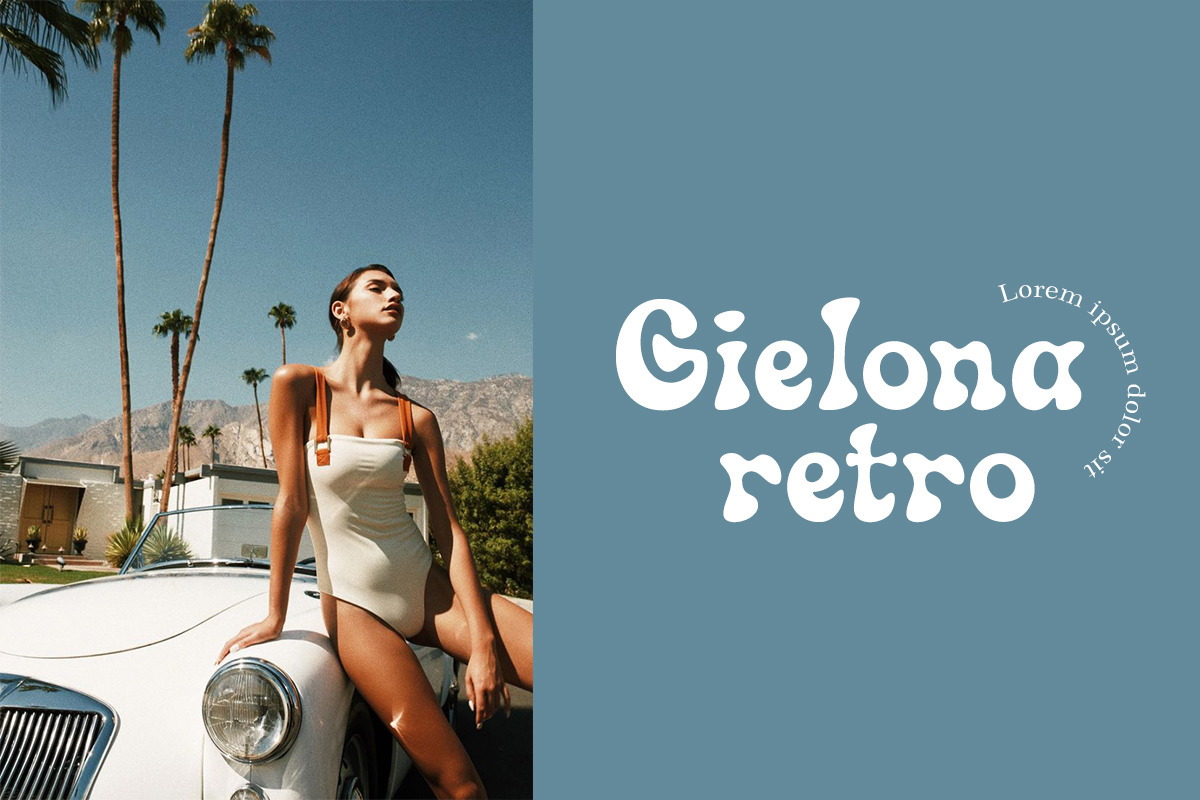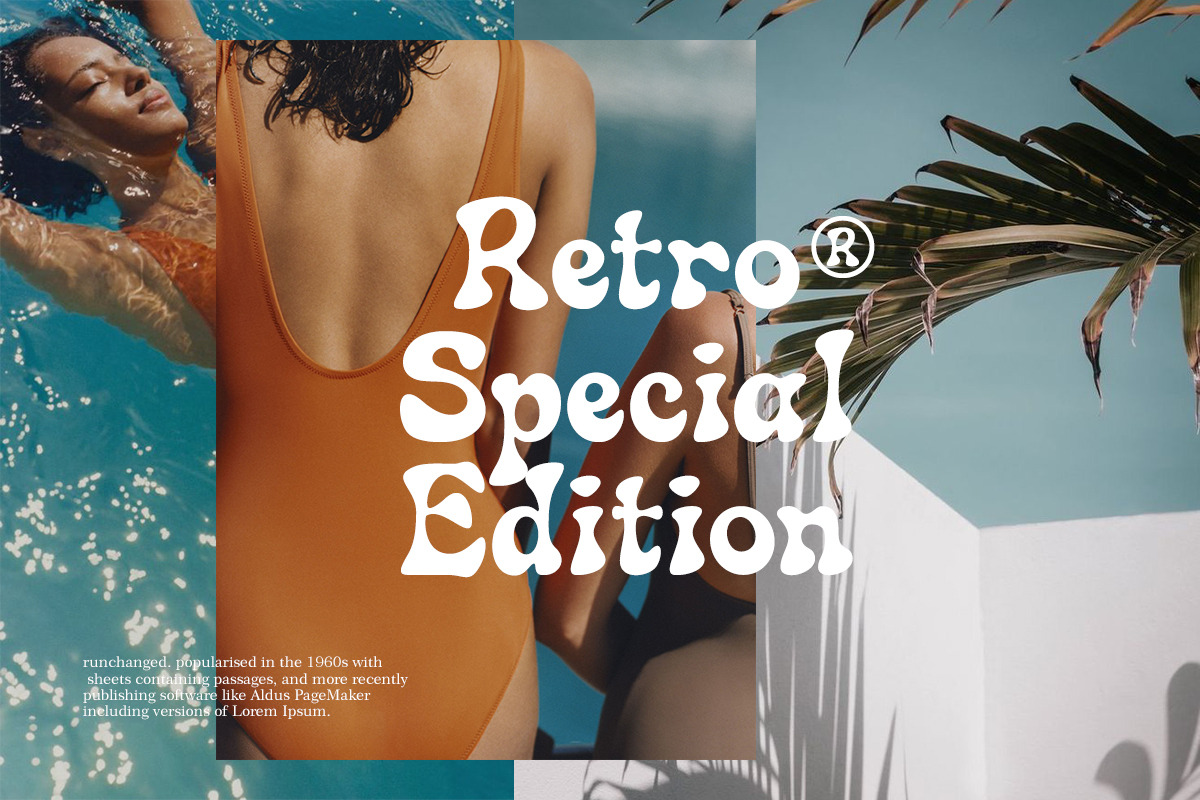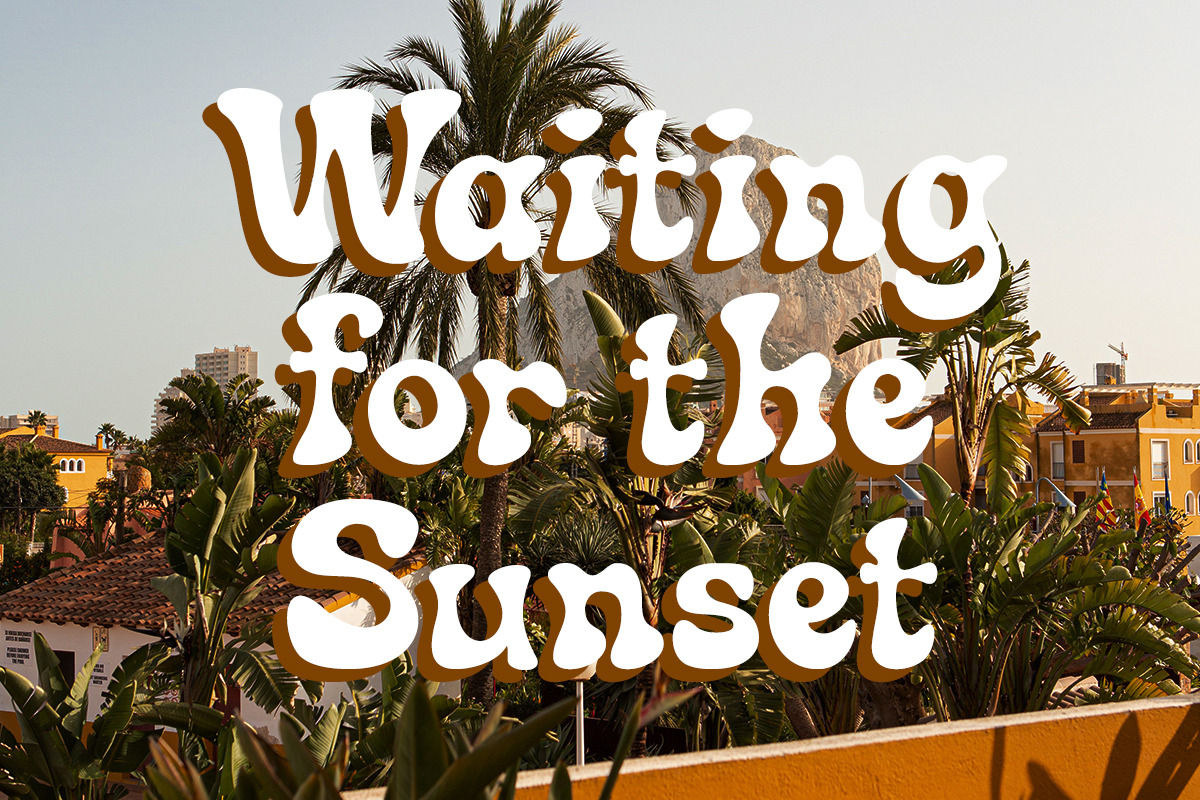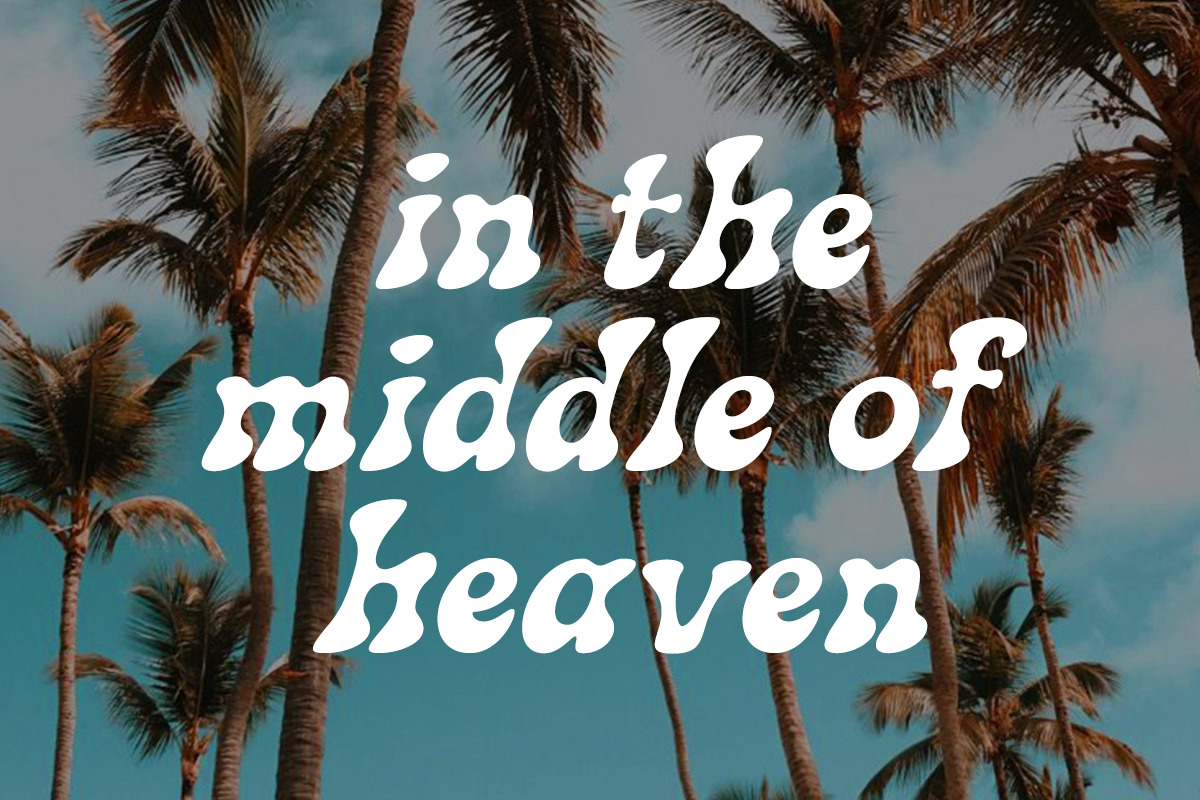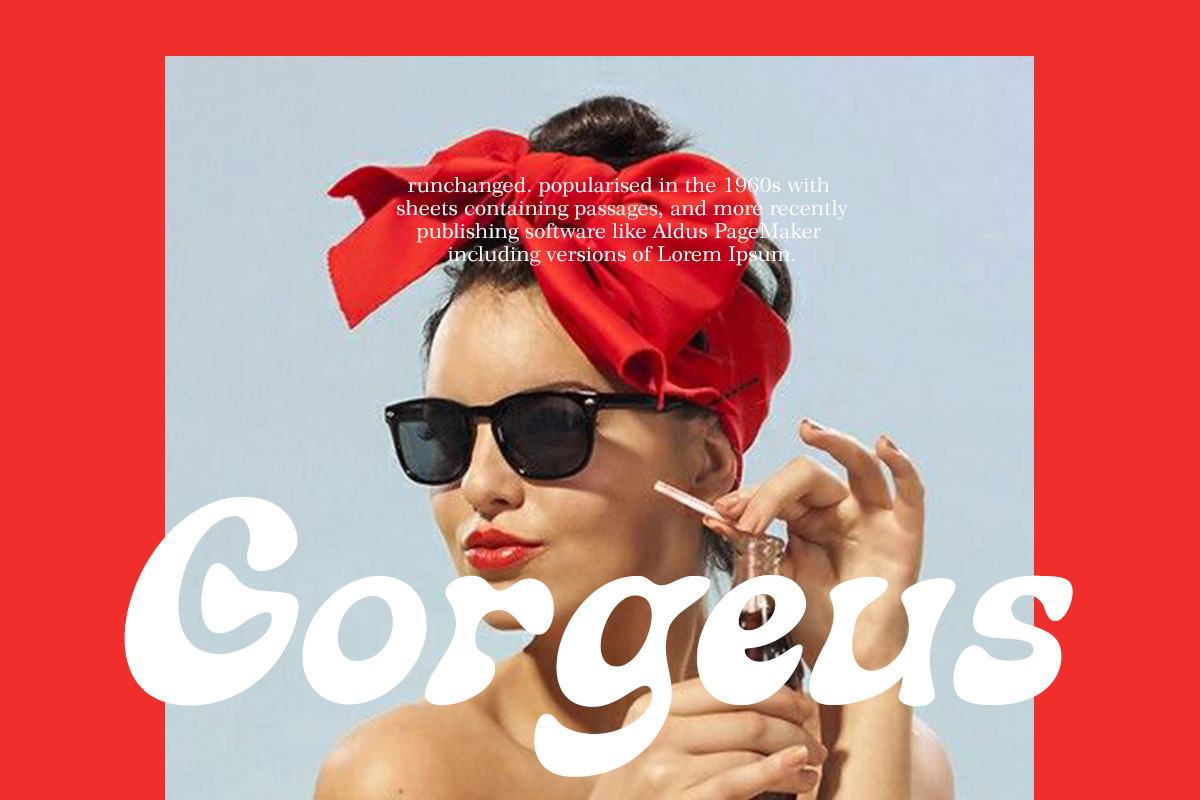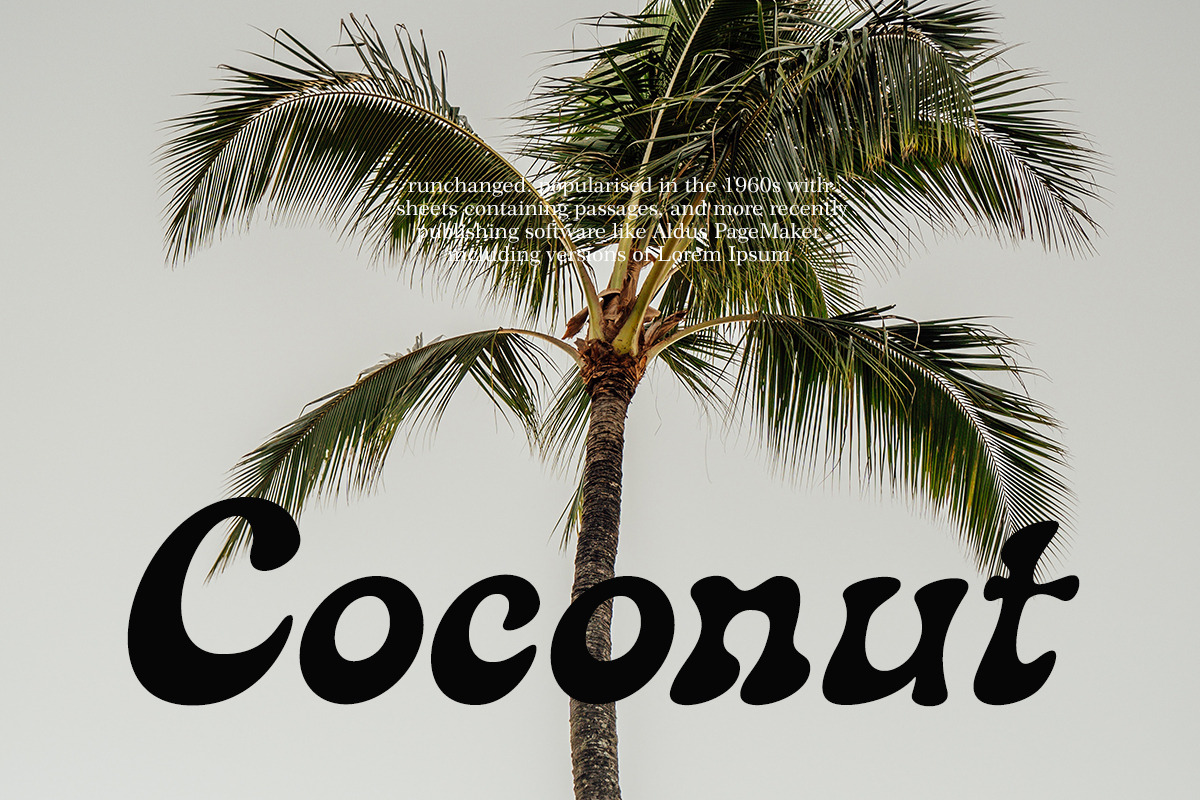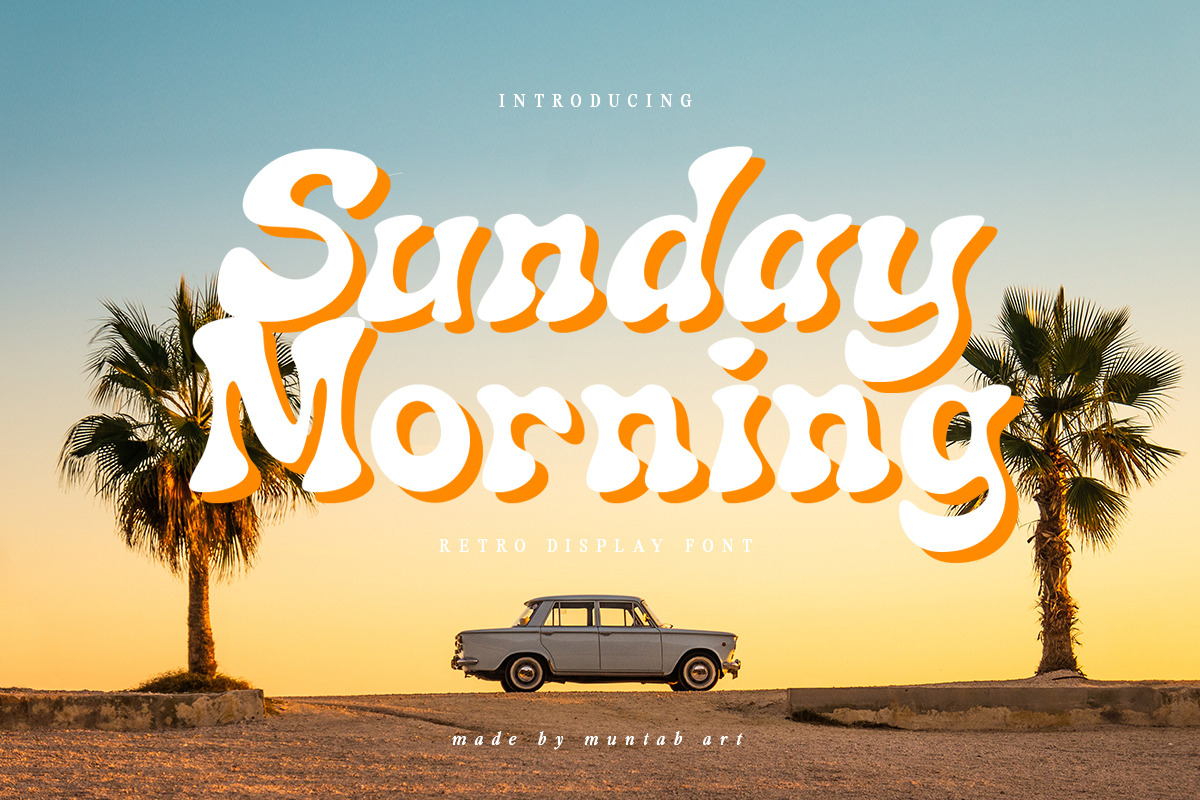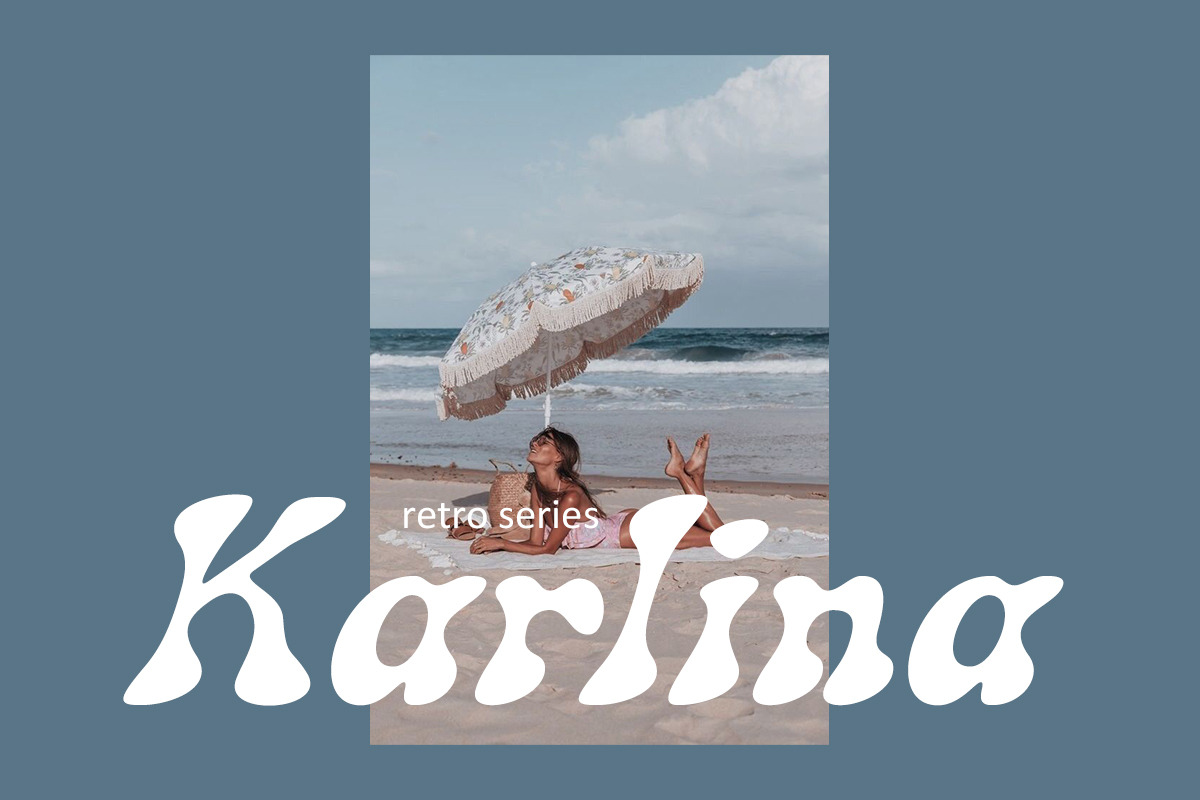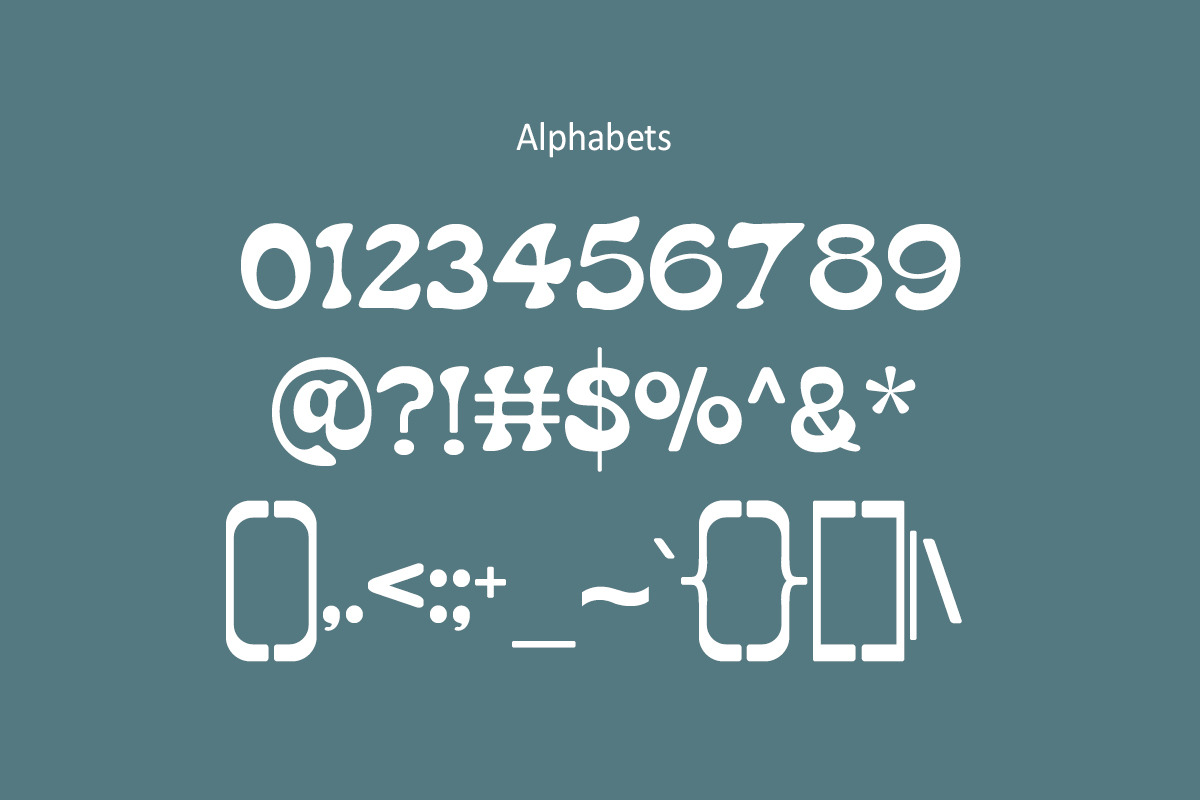
Sunday Morning Retro Display Font
Sunday Morning fonts include uppercase letters, lowercase letters, numerals, a large range of punctuation. Serif font with retro style. Created for poster, web design, branding, illustrations, badges, and some other works.